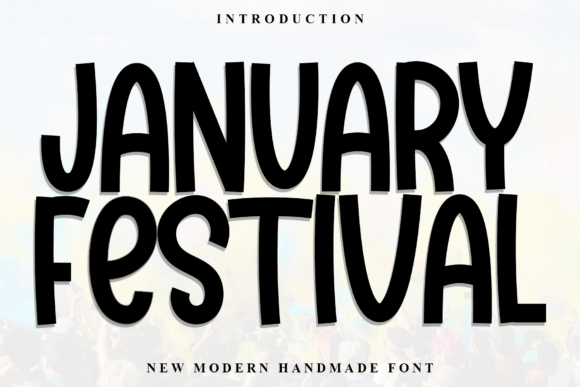
January Festival Font: A Timeless Handwritten Font for Stunning Designs
Are you looking for a font that can add a touch of elegance and sophistication to your designs? Look no further than the January Festival Font. This lovely and timeless handwritten font is perfect for creating eye-catching logos, branding, and quotes that will leave a lasting impression on your audience.
Unique and Beautiful Touch
What sets January Festival Font apart from other fonts is its unique and beautiful touch. Every letter has been carefully crafted to give it a distinctive and elegant feel that will make your design come alive. Whether you’re creating a logo, branding materials, or quotes, this font is sure to add a touch of sophistication and style.
Ideas for Using January Festival Font
January Festival Font is a versatile font that can be used in a variety of design projects. Here are some ideas to get you started:
- Logos: Create a stunning logo for your business or brand using January Festival Font. The font’s elegant and sophisticated feel makes it perfect for logos that need to convey a sense of luxury and style.
- Branding: Use January Festival Font to create branding materials such as business cards, letterheads, and brochures. The font’s unique and beautiful touch will help to create a cohesive and stylish brand identity.
- Quotes: Add a touch of elegance and sophistication to your quotes using January Festival Font. The font’s handwritten feel makes it perfect for creating inspirational and motivational quotes that will resonate with your audience.
- Social Media Graphics: Use January Festival Font to create stunning social media graphics that will help to increase engagement and drive traffic to your website.
- Wedding and Event Stationery: January Festival Font is perfect for creating beautiful wedding and event stationery such as invitations, save the dates, and thank you cards.
Benefits of Using January Festival Font
There are many benefits to using January Festival Font in your design projects. Here are some of the advantages of using this font:
- Unique and Distinctive: January Festival Font has a unique and distinctive feel that will help your design to stand out from the crowd.
- Elegant and Sophisticated: The font’s elegant and sophisticated feel makes it perfect for designs that need to convey a sense of luxury and style.
- Versatile: January Festival Font is a versatile font that can be used in a variety of design projects, from logos and branding to quotes and social media graphics.
- Easy to Read: The font is easy to read, even at small sizes, making it perfect for use in body text and captions.
Tips for Using January Festival Font
Here are some tips for using January Festival Font in your design projects:
- Use it Sparingly: January Festival Font is a bold and elegant font, so use it sparingly to add emphasis and style to your design.
- Pair it with Other Fonts: January Festival Font pairs well with other fonts, so don’t be afraid to experiment with different font combinations.
- Experiment with Colors: January Festival Font looks great in a variety of colors, so experiment with different colors to find the one that works best for your design.
- Pay Attention to Kerning: As with any font, pay attention to kerning to ensure that your text looks professional and polished.
Where to Use January Festival Font
January Festival Font can be used in a variety of design projects, including:
- Print Materials: January Festival Font can be used in print materials such as brochures, flyers, and posters.
- Digital Materials: January Festival Font can be used in digital materials such as social media graphics, email newsletters, and website headers.
- Branding Materials: January Festival Font can be used in branding materials such as logos, business cards, and letterheads.
- Packaging: January Festival Font can be used in packaging materials such as labels and product packaging.
January Festival Font is a lovely and timeless handwritten font that is perfect for creating eye-catching logos, branding, and quotes. With its unique and beautiful touch, this font is sure to add a touch of elegance and sophistication to your designs. Whether you’re a designer, entrepreneur, or simply someone who loves to create, January Festival Font is a great choice for any design project.